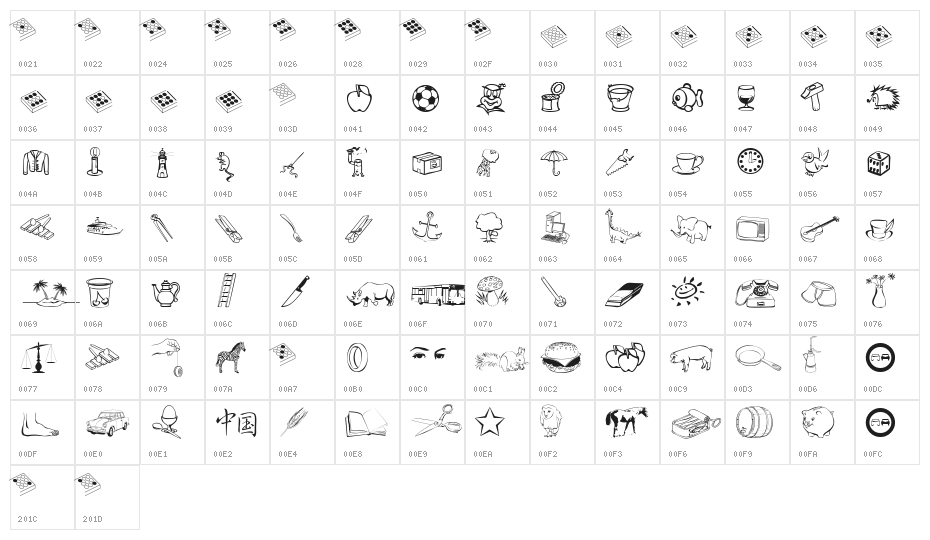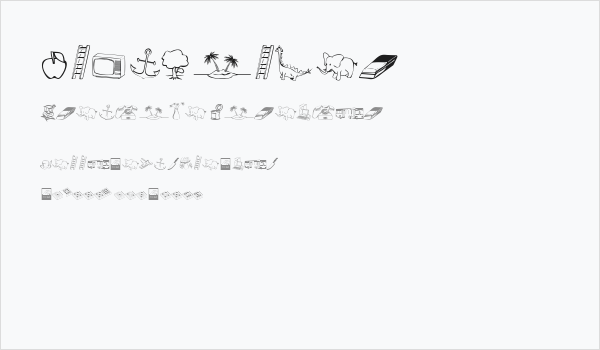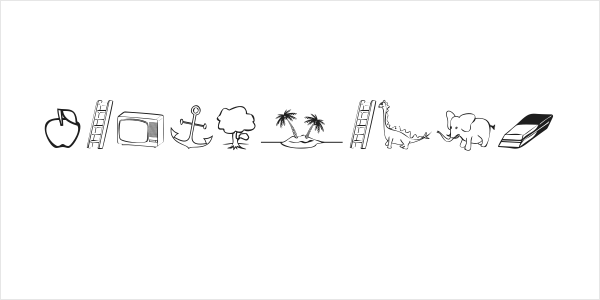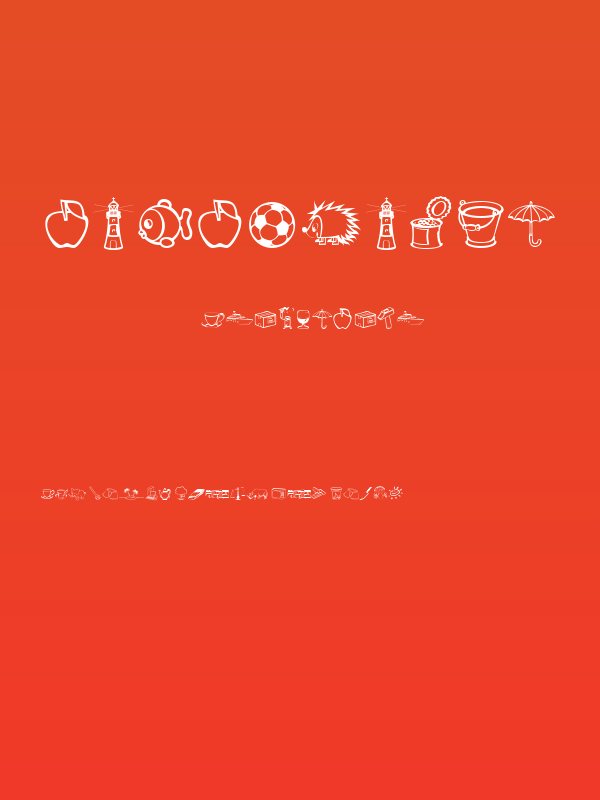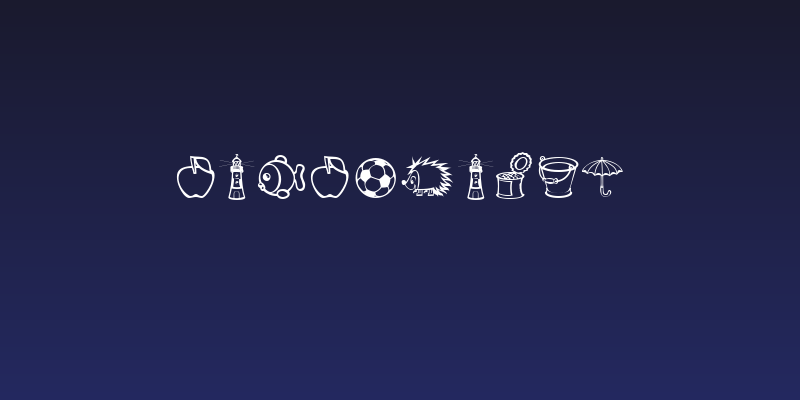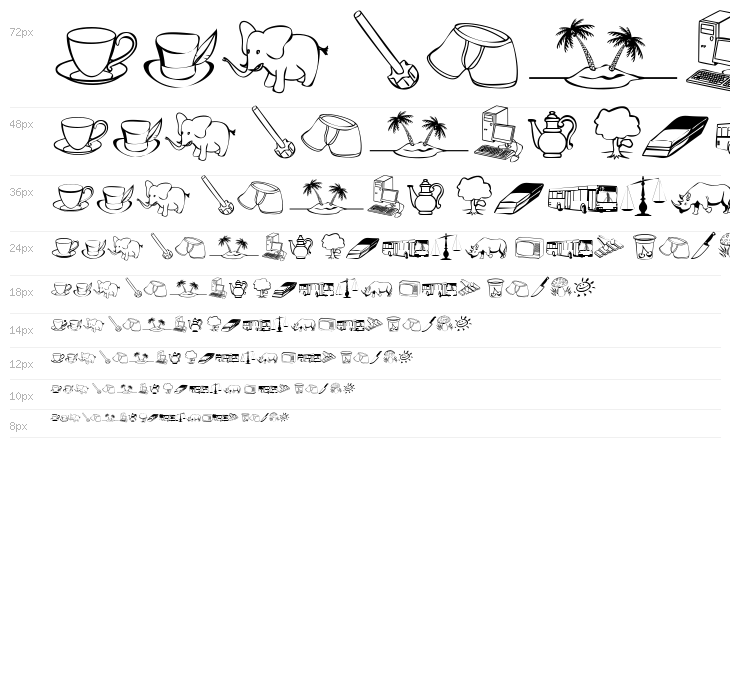
Alfabilder Font
Alfabilder Description
A playful, illustrative set of pictograms representing each letter and number, with hand-drawn, cartoon-like line art. Each character is depicted as a unique object or animal, giving the set a whimsical and educational feel. The symbols are clear and easily recognizable, with consistent line weight and minimal shading.
| Overall Style | Playful, Educational, Decorative |
| Use Case | Educational materials, Posters, Visual aids, ChildrenΓ’β¬β’s books |
| Proposed Projects | ChildrenΓ’β¬β’s educational materials, alphabet learning tools, playful posters, activity books, visual aids, and creative branding for kidsΓ’β¬β’ products. |